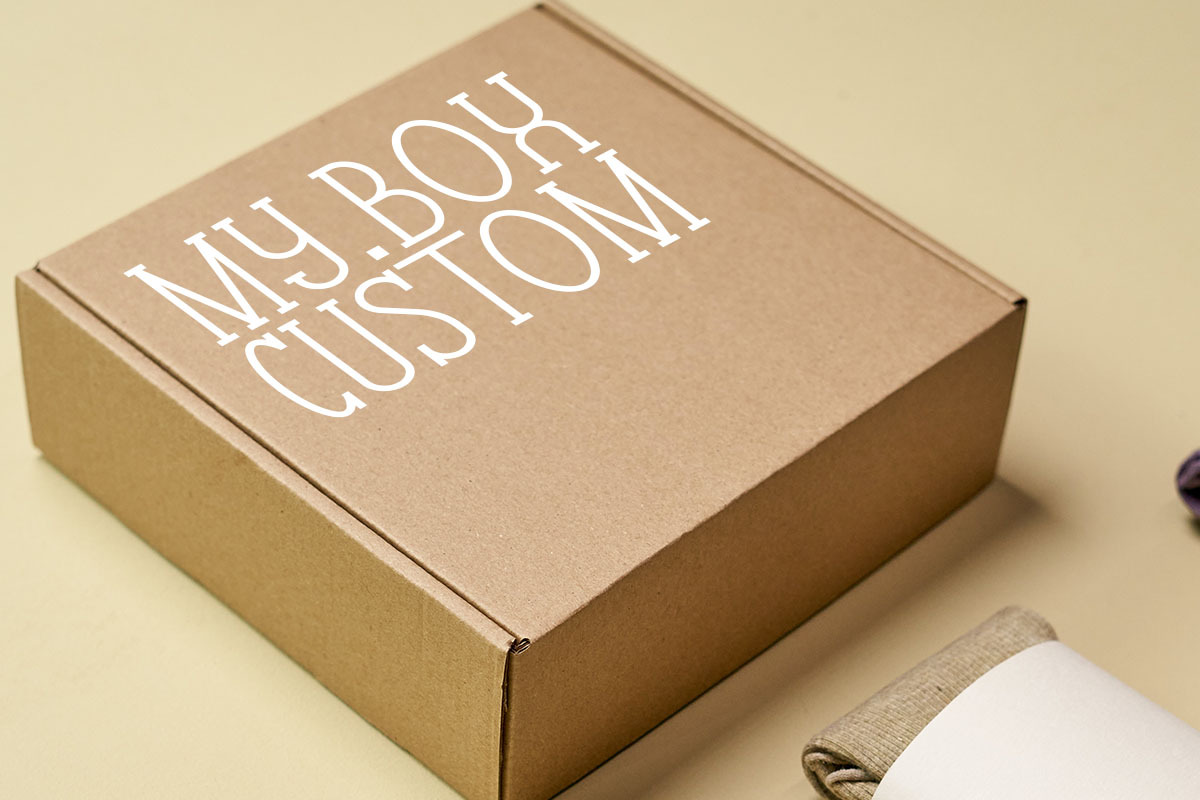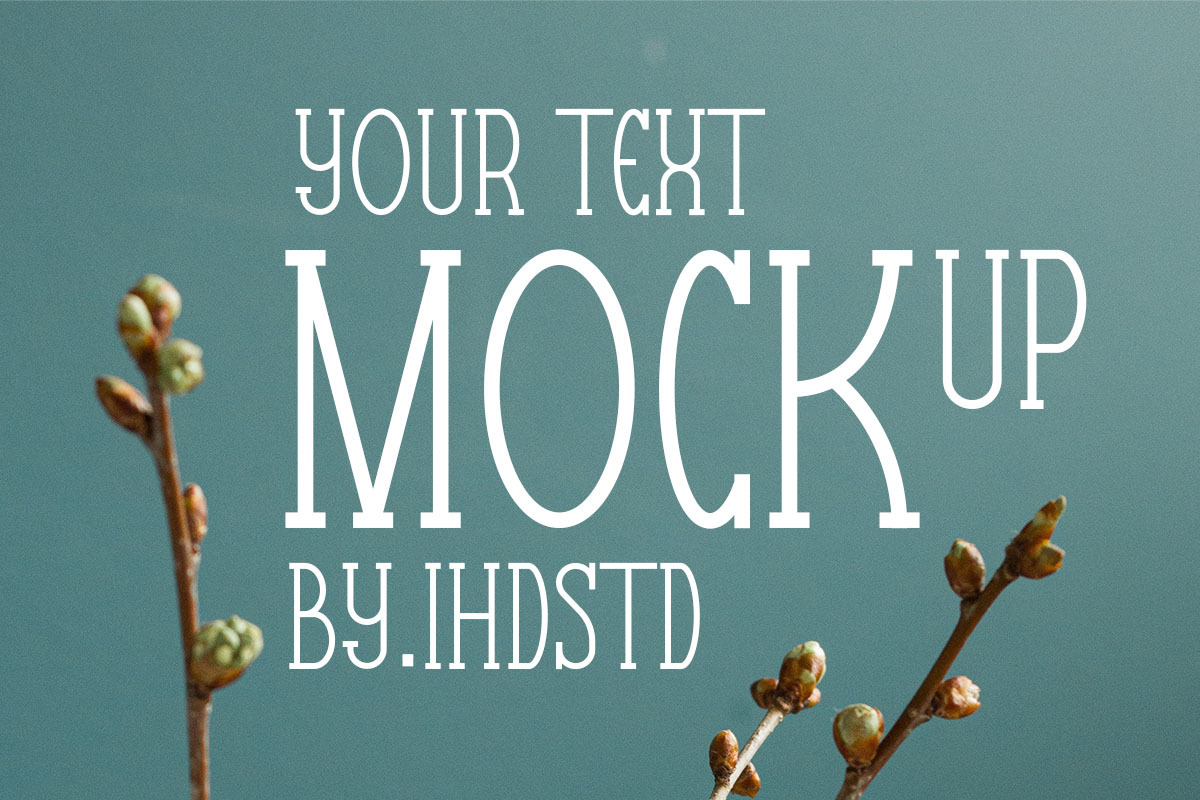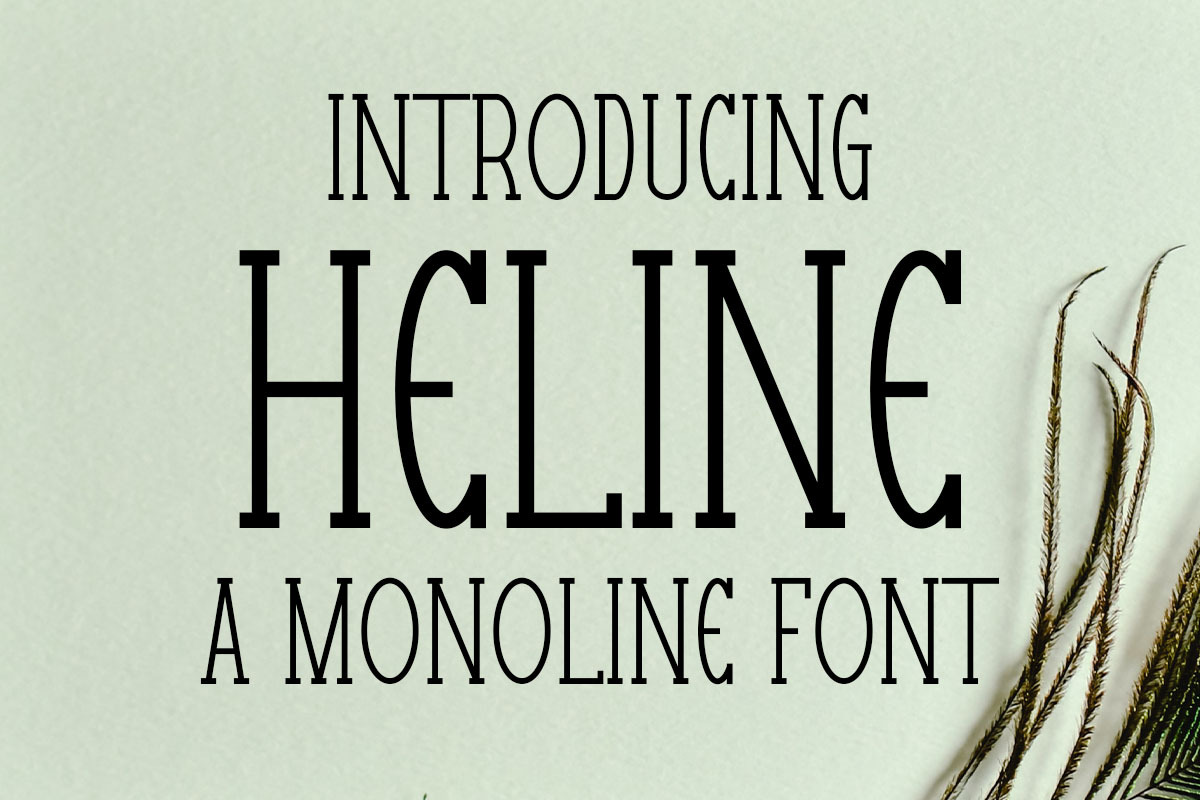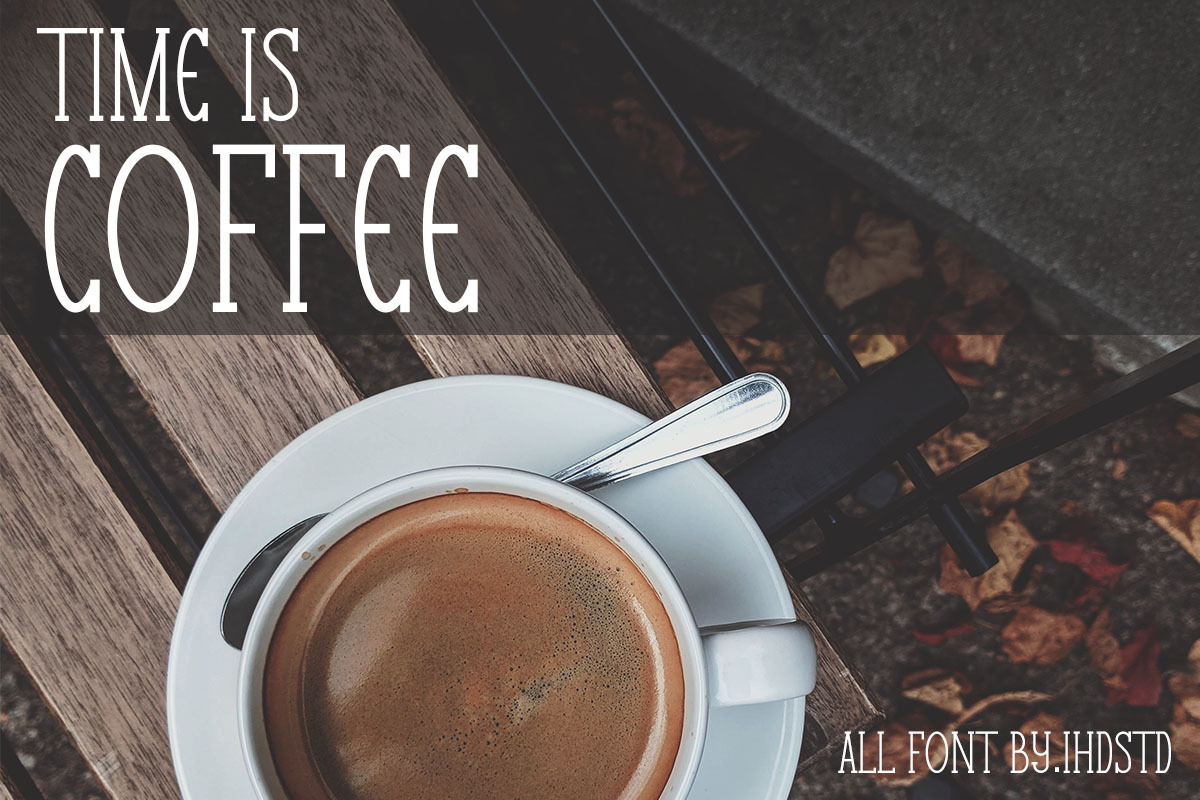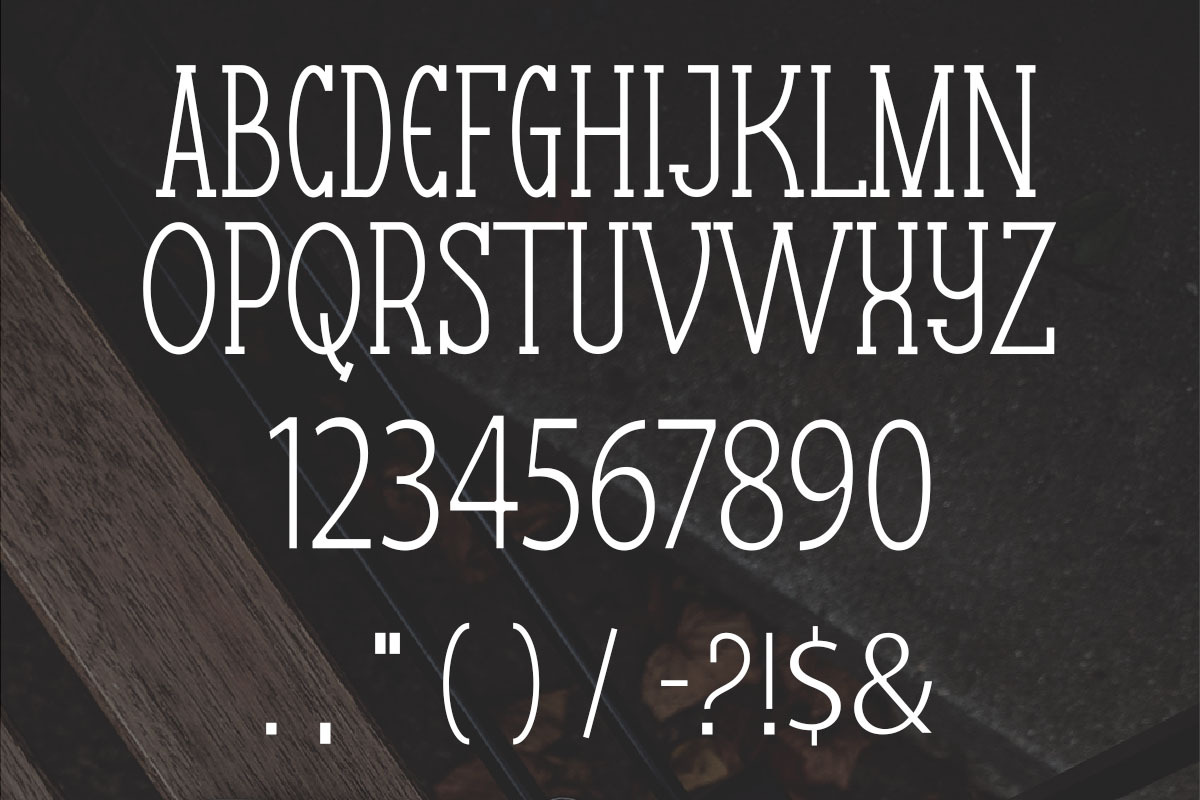
Heline monoline font
Heline font is our new item that suitable for your Posters.
Great for Logo, Poster, Sticker, Jersey, Invitation Card, Brochure, etc.